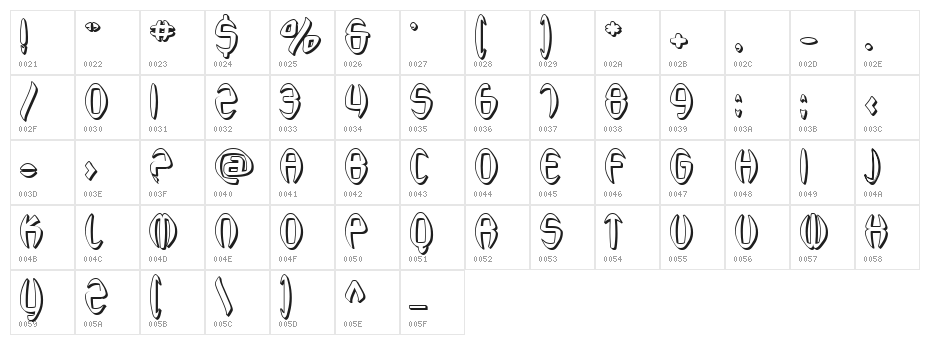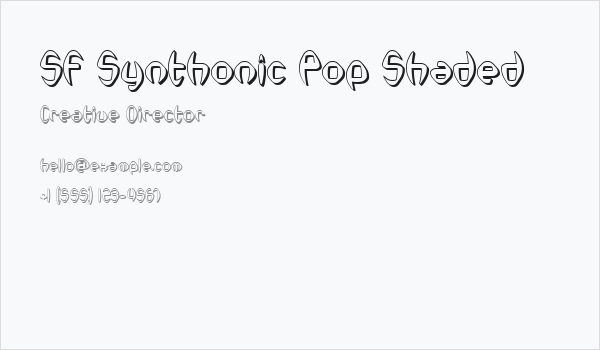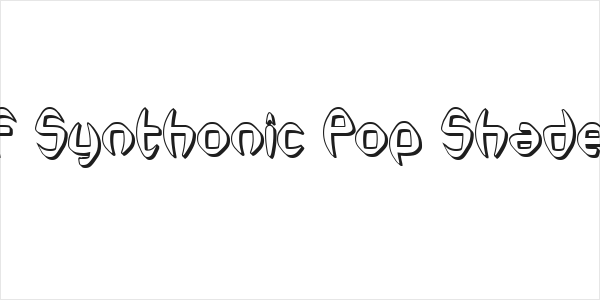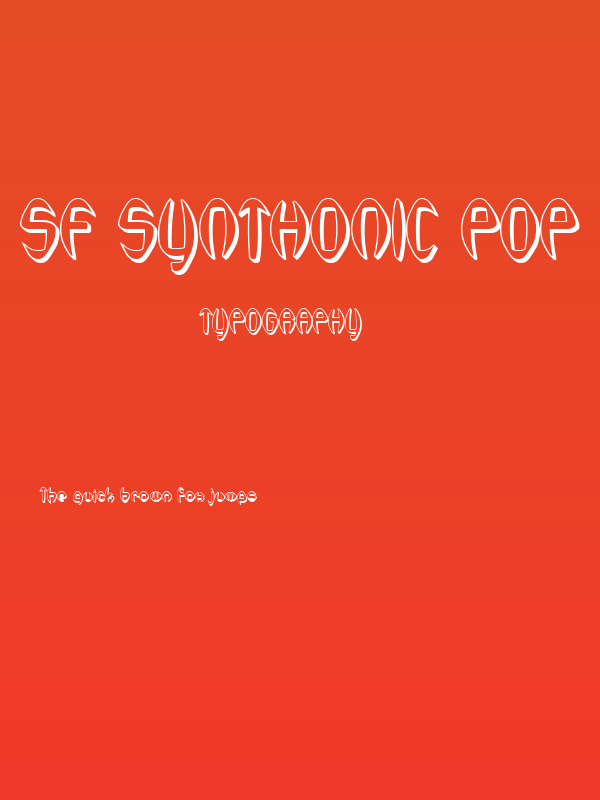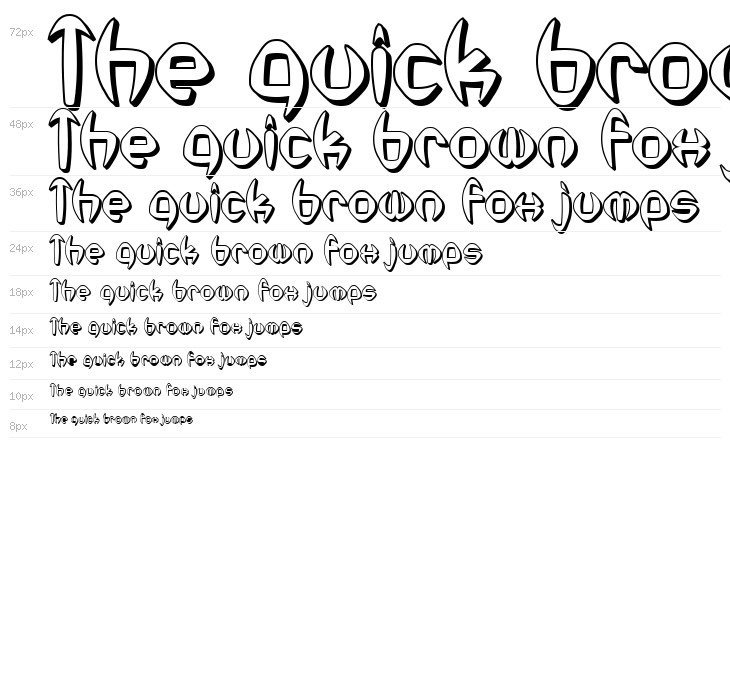
SF Synthonic Pop Shaded Font
SF Synthonic Pop Shaded Description
This font features a unique, futuristic design with a bold, shaded appearance. The characters are outlined with a shadow effect that gives them a three-dimensional look. The letters are rounded and have a consistent thickness, creating a cohesive and modern aesthetic. The uppercase and lowercase letters maintain a similar style, with slight variations to distinguish them. Numbers and special characters follow the same design principles, ensuring uniformity across all glyphs. The font's playful yet sophisticated style makes it suitable for creative projects that require a standout visual element.
| Proposed Projects | Ideal for sci-fi themed designs, video game titles, posters, and branding that requires a modern and eye-catching look. |